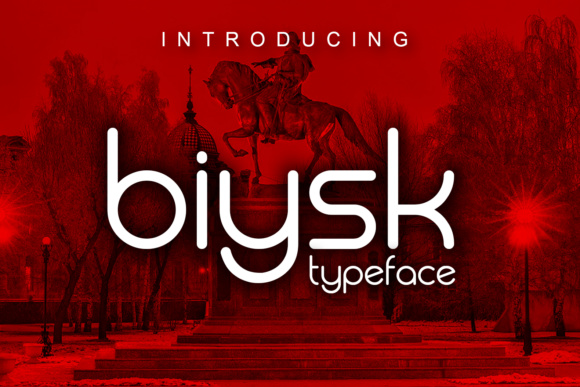
Biysk Font
Download Biysk Font for free! Created by vladimirnikolic and published by Nathan Houston, this sans serif font family is perfect for adding a unique touch to your designs.
Font Name : Biysk Font
Author : vladimirnikolic
Unleash the Power of Biysk: A Sans Serif Masterpiece That Captivates and Inspires
In the realm of typography, where words take form and meaning transcends boundaries, Biysk emerges as a radiant beacon of creativity and expression. This exceptional Sans Serif typeface, meticulously crafted by the visionary designer vladimirnikolic, is a testament to the transformative power of simplicity and elegance.
Biysk's allure lies in its effortless readability, a quality that often eludes fonts in its category. Every letter, every curve, and every stroke is meticulously designed to ensure clarity and legibility, even in the most intricate of compositions. Whether you're crafting a captivating print layout, designing a bold t-shirt statement, or creating a dynamic flyer, Biysk rises to the occasion, ensuring your message shines through with unwavering clarity.
Beyond its functional prowess, Biysk possesses an undeniable aesthetic charm that elevates your designs to new heights. Its clean lines, geometric precision, and subtle nuances evoke a sense of sophistication and modernity, adding a touch of timeless elegance to any project. Whether you're a seasoned designer seeking a reliable workhorse or a creative enthusiast seeking a font that amplifies your vision, Biysk is the perfect companion for your design journey.
But Biysk's versatility extends far beyond the confines of traditional print media. Its inherent digital prowess makes it an ideal choice for web design, social media graphics, and even user interface elements. Its crisp lines and sharp angles render beautifully on high-resolution screens, ensuring your digital creations captivate audiences with their sleek and contemporary aesthetic.
With Biysk at your disposal, the possibilities are boundless. Transform mundane text into captivating headlines, craft logos that leave a lasting impression, and design social media posts that ignite engagement. Let Biysk's versatility ignite your creativity and propel your designs to new heights.